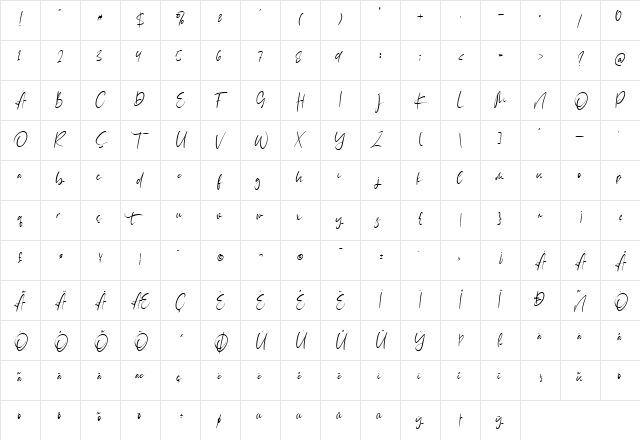
Catthy Wellingten Regular
| Foundry | Stringlab |
| Designer | Stringlab |
Design Context for Catthy Wellingten Typeface
Catthy Wellingten is a composed and adaptable typeface that performs quietly and consistently across a wide range of design contexts.